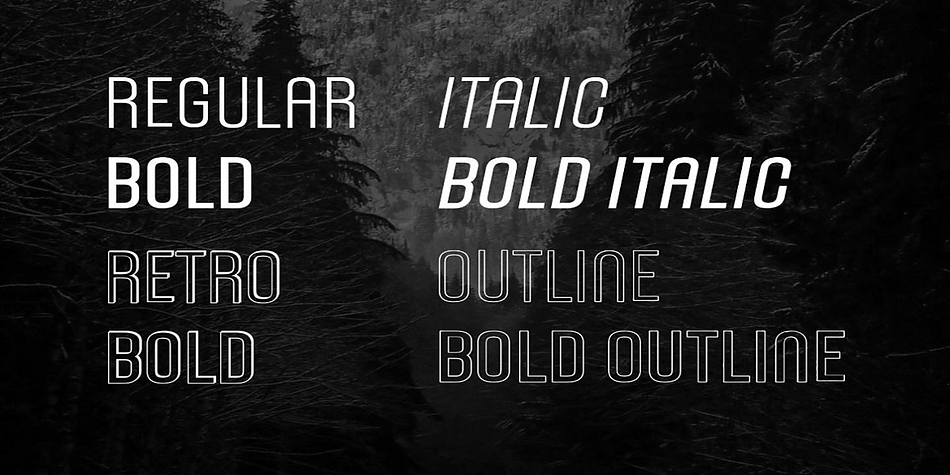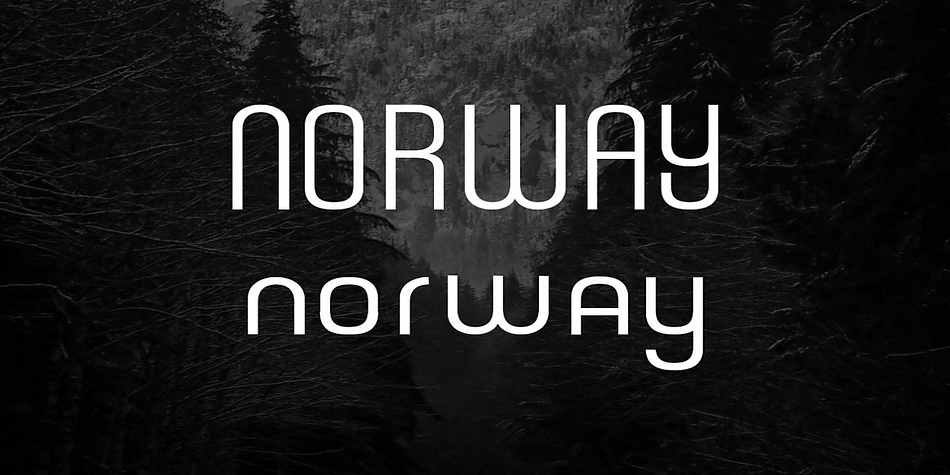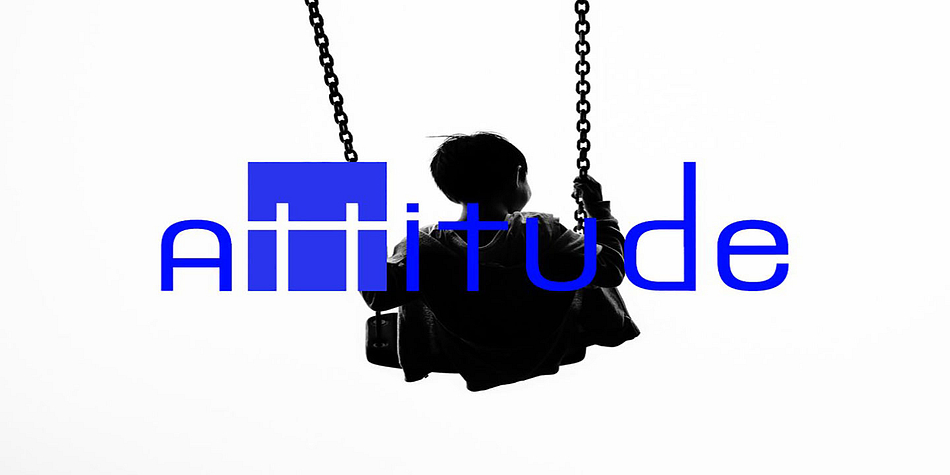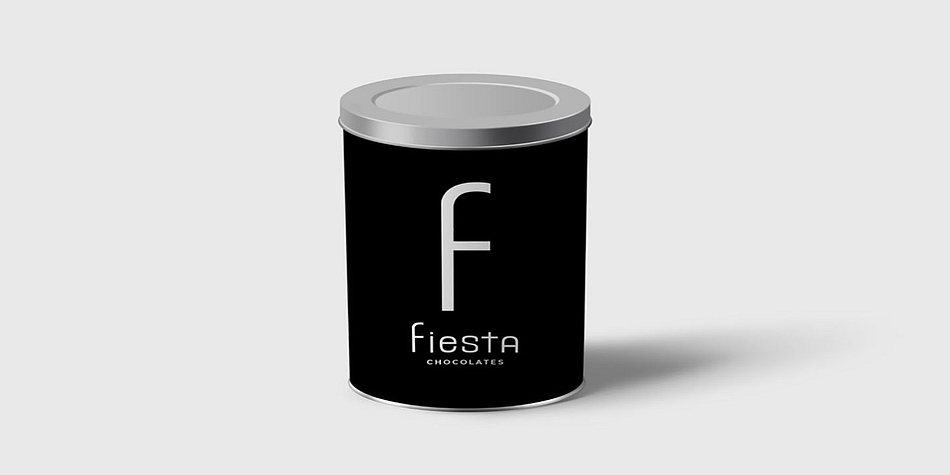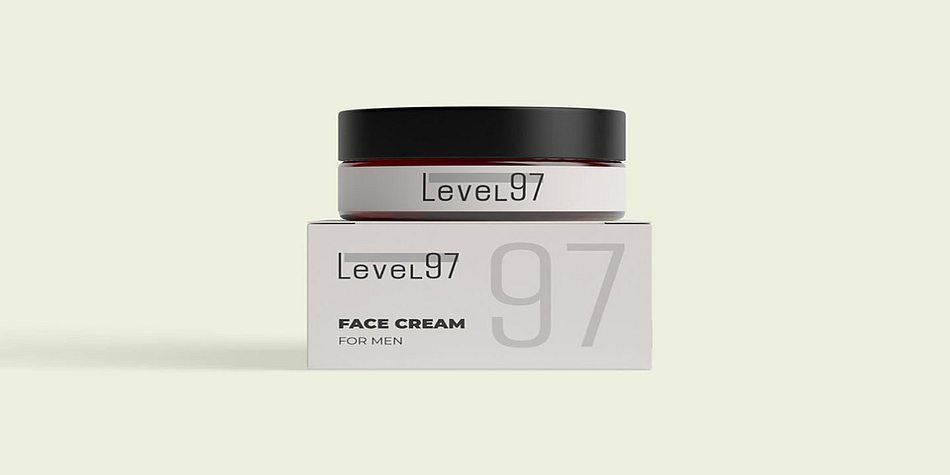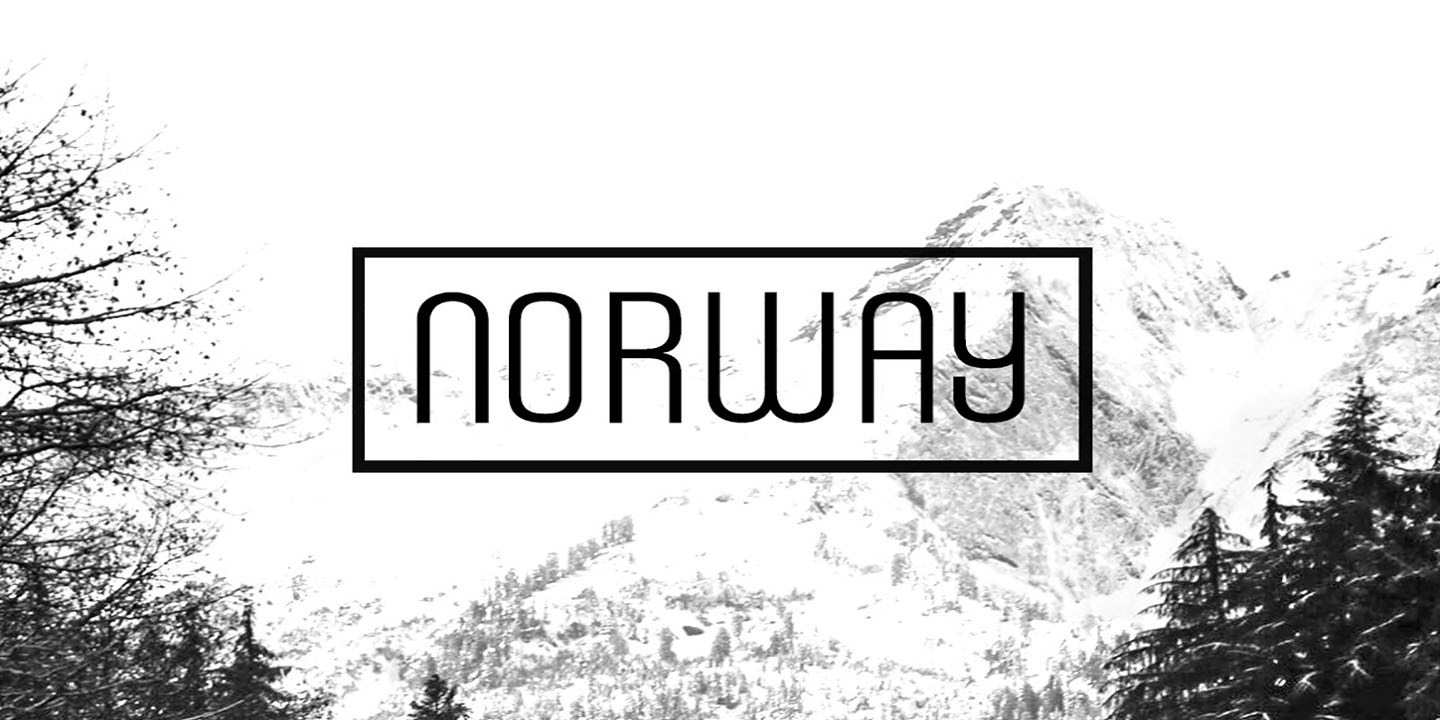
NORWAY
NORWAY is a display sans font family. This typeface has eight styles and was published by Fontastica.
NORWAY is a unique typeface for headlines, big text, branding, logotypes & display usage. This unique typeface comes with 4 different styles (Normal, Outline, Retro, Italic) is best for creating outstanding logos, promotional content and marketing graphics that can really grab attention from your visitors. Please see the examples shown above to get an idea about the capability of this typeface.
NORWAY comes with 2 weights (Regular, Bold) as well as 4 styles (Normal, Outline, Retro, Italic). The pack contains OTF, TTF and Web Fonts (all EOT, SVG, TTF, WOFF, WOFF2 everything is included).